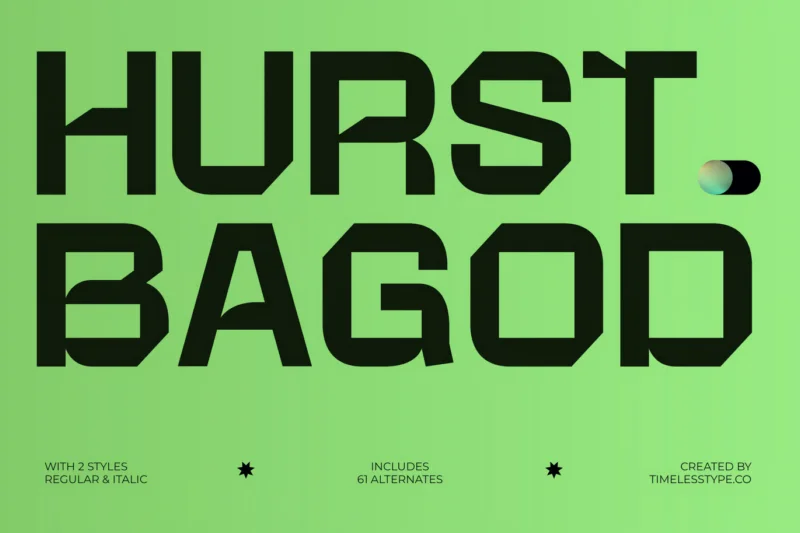
Hurst Bagod – Futuristic Sans Serif Font
Hurst Bagod is a futuristic geometric sans serif built with sharp edges, solid forms, and modern industrial attitude. Designed for maximum impact, this typeface brings a bold, techno-forward identity perfect for headlines, esports branding, posters, interfaces, sci-fi visuals, and any design that needs strong geometric presence.
With 2 styles (Regular & Italic) and 61 alternates, Hurst Bagod gives you a wide range of stylistic options—from aggressive angles to sleek minimal cuts. Every character is engineered to look powerful, clean, and future-ready.